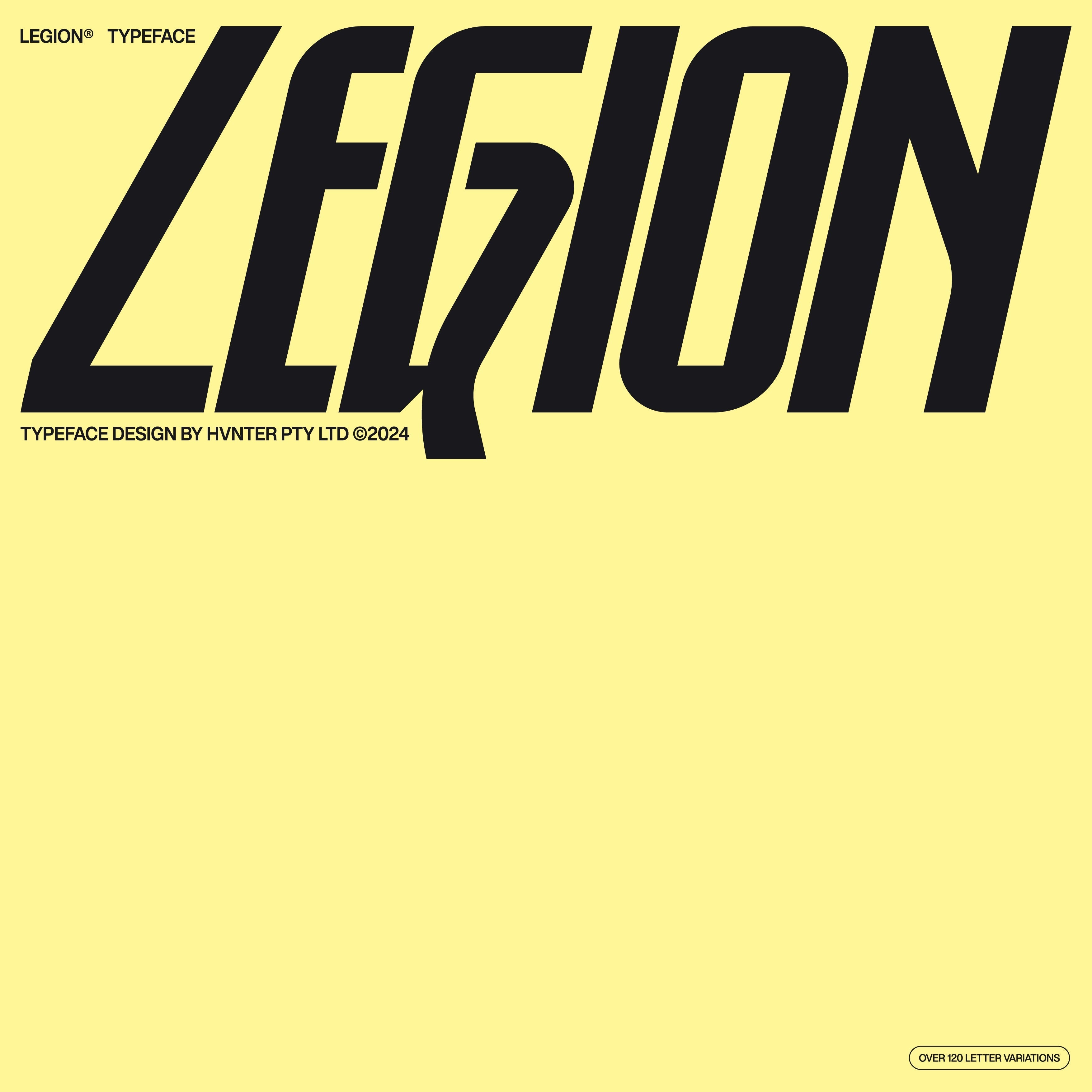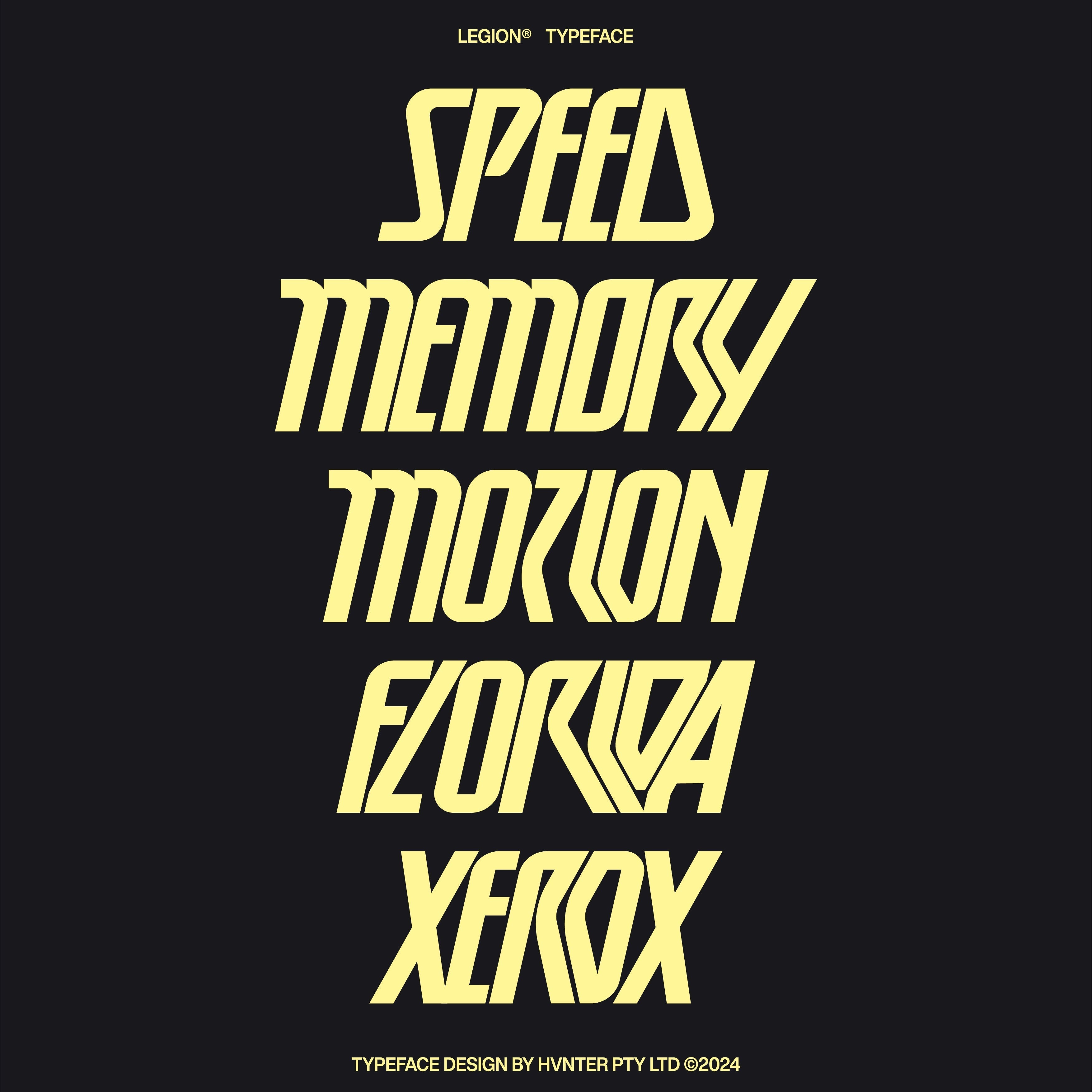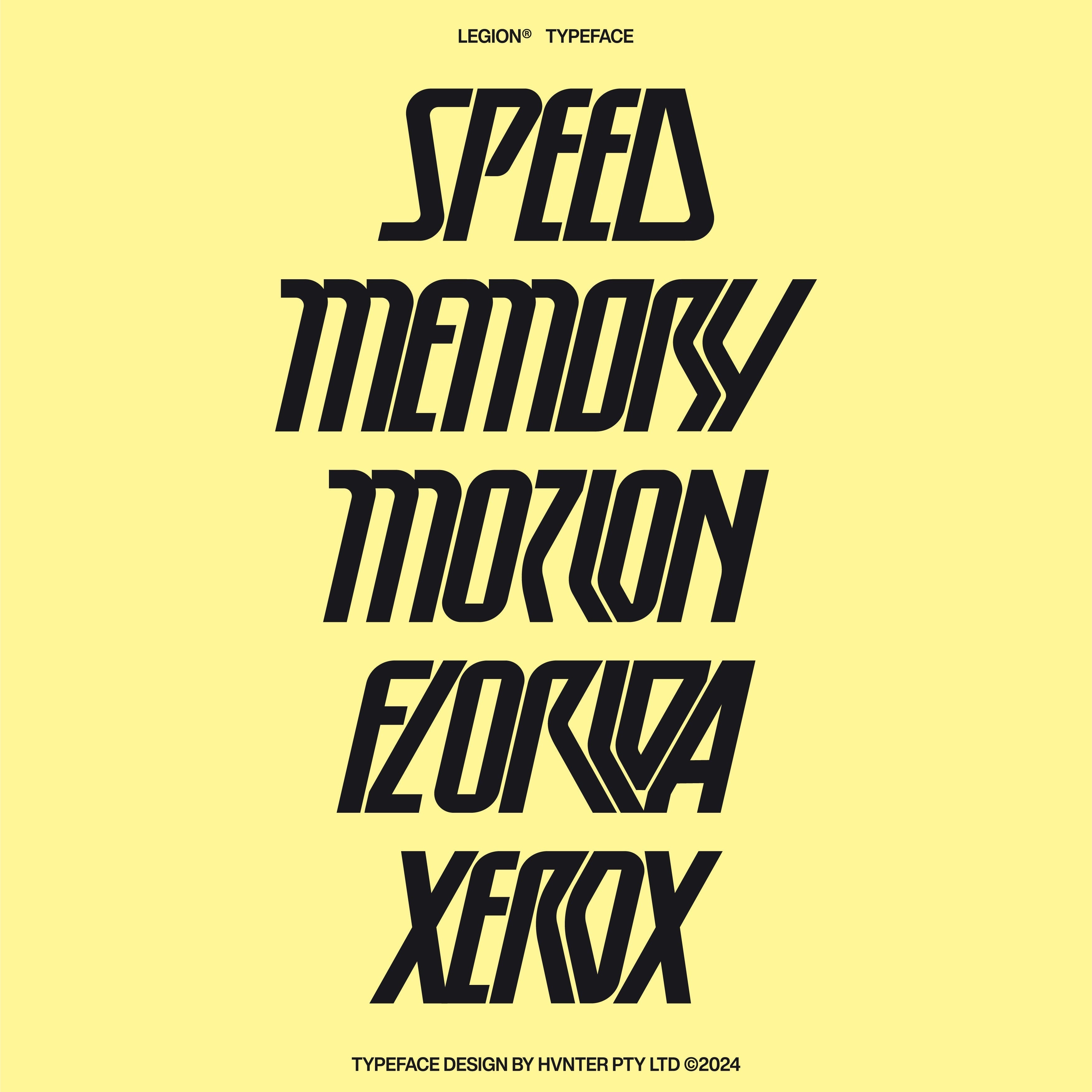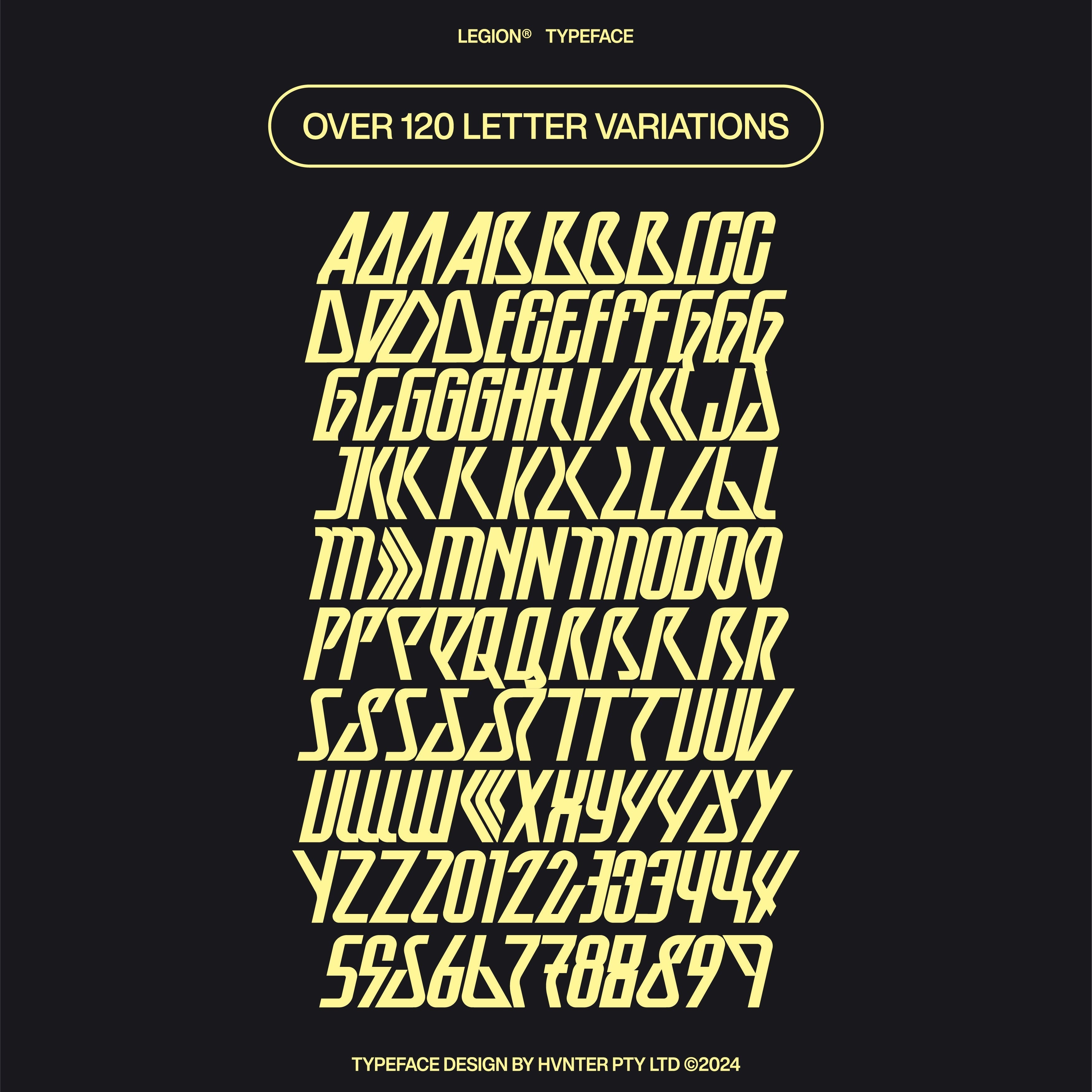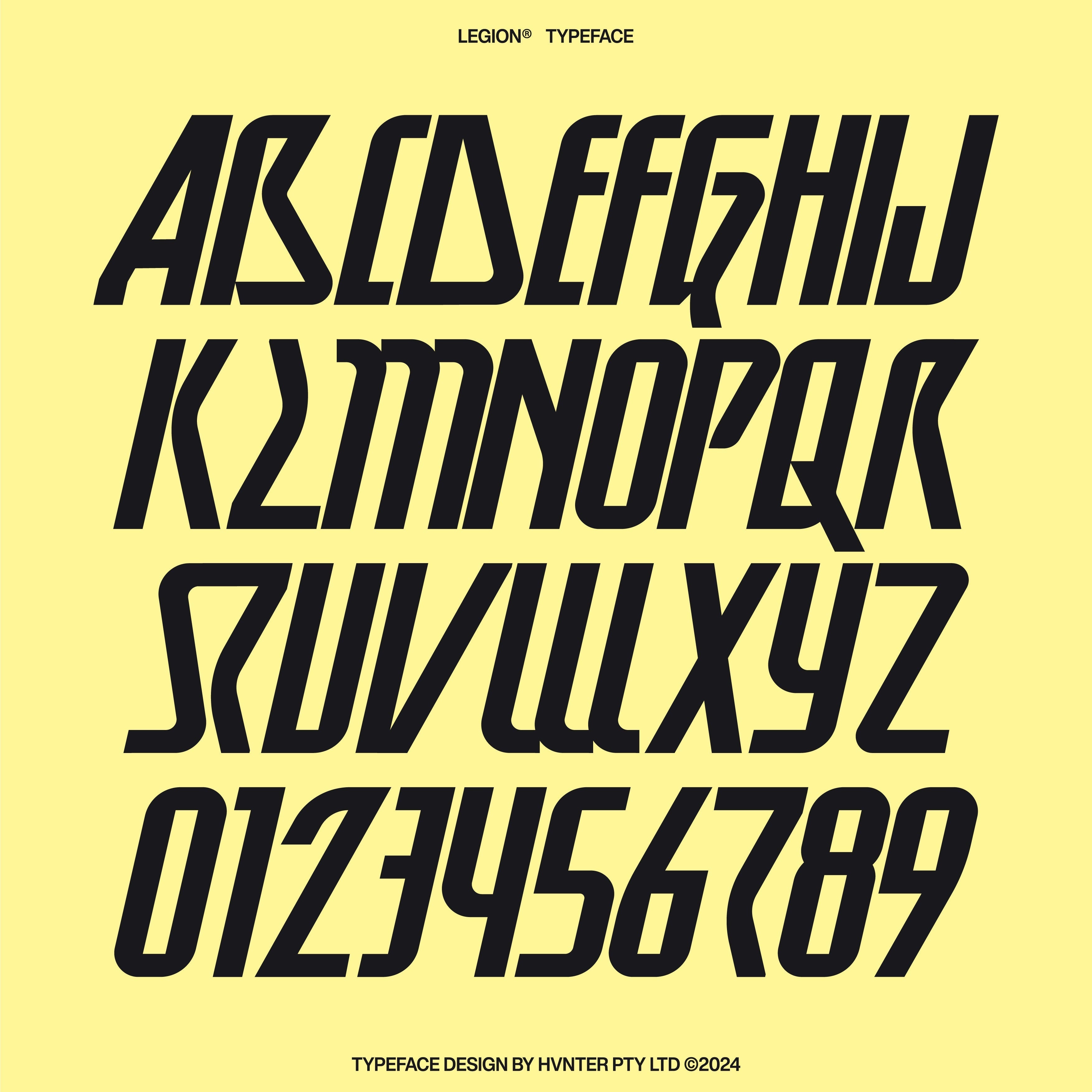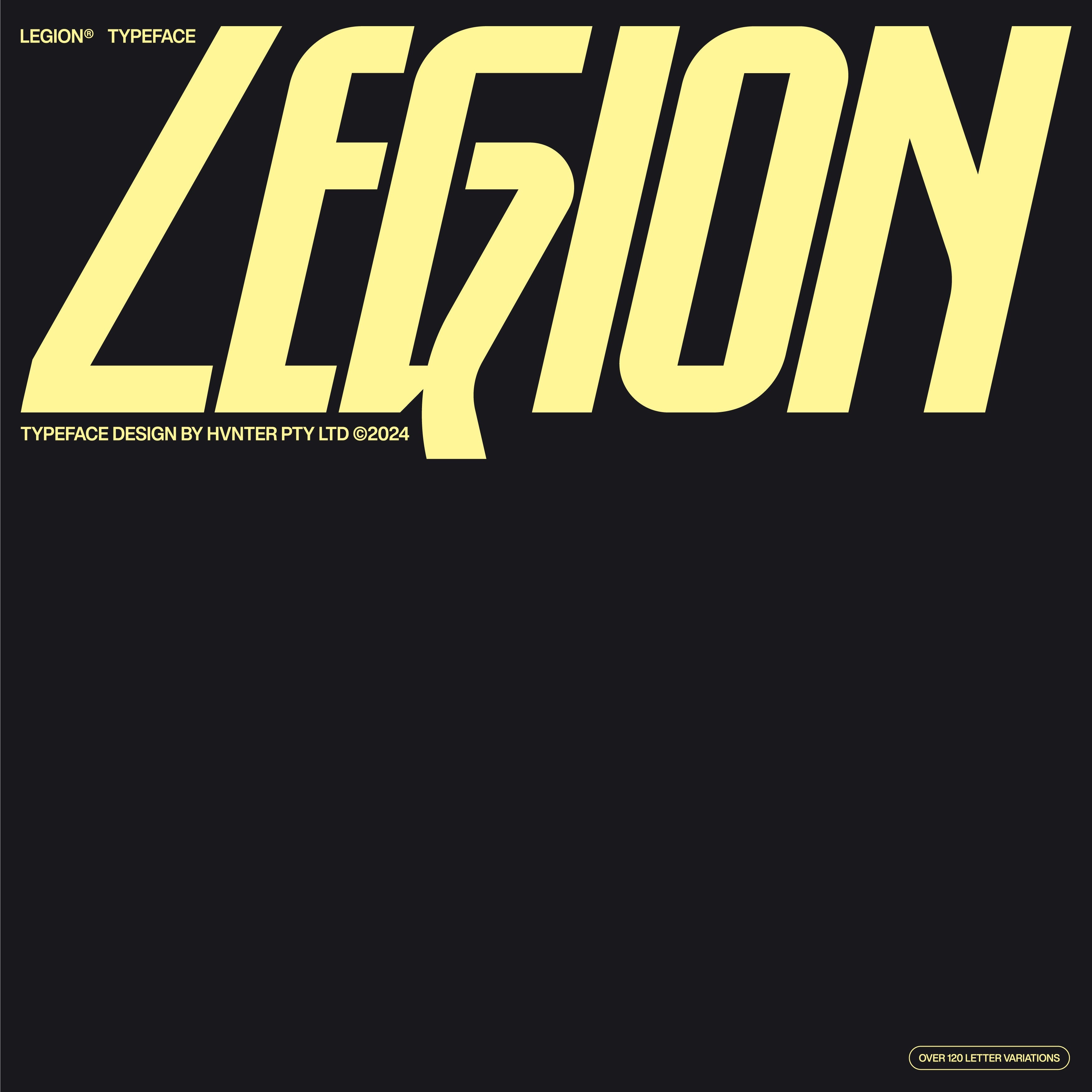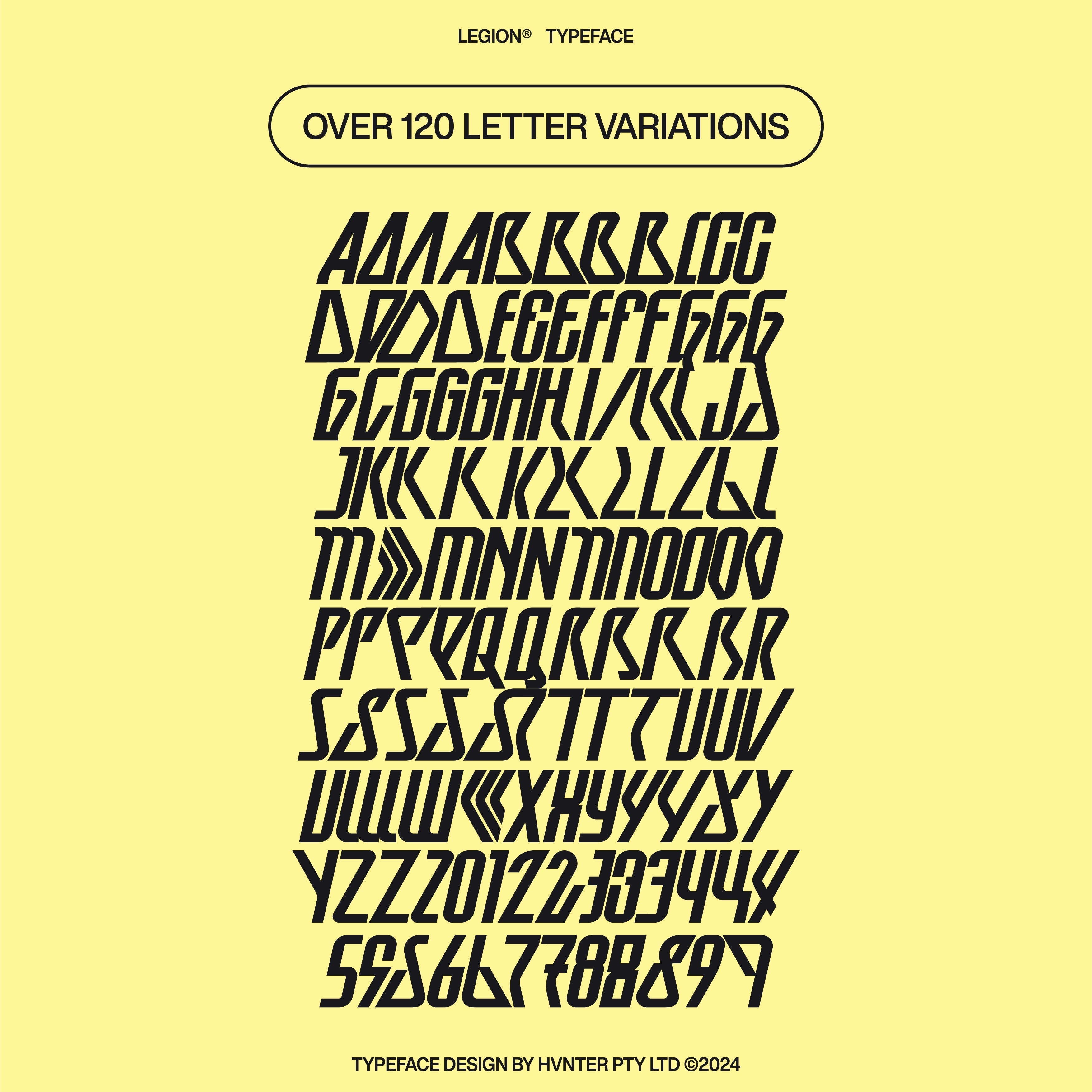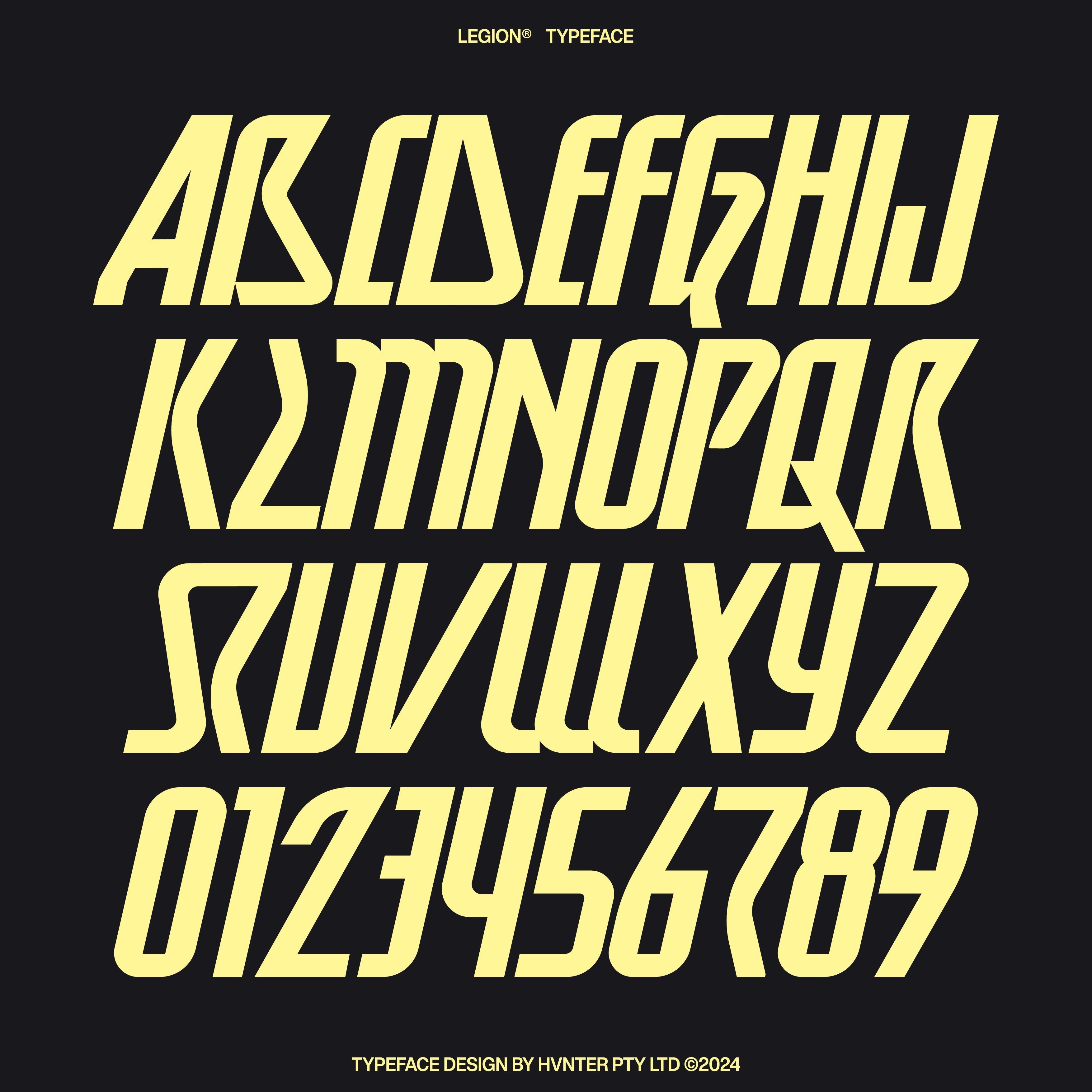
Legion Typeface
Slanted typeface with over 120 letter variations to construct unique typography!
Includes A-Z, 0-9, basic symbols + 120 glyph variants.
The Legion Typeface is a slanted font that offers over 120 letter variations, including A-Z, 0-9, basic symbols, and 120 glyph variants. It has a futuristic, cyberpunk style and is characterized by its bold, italic display.